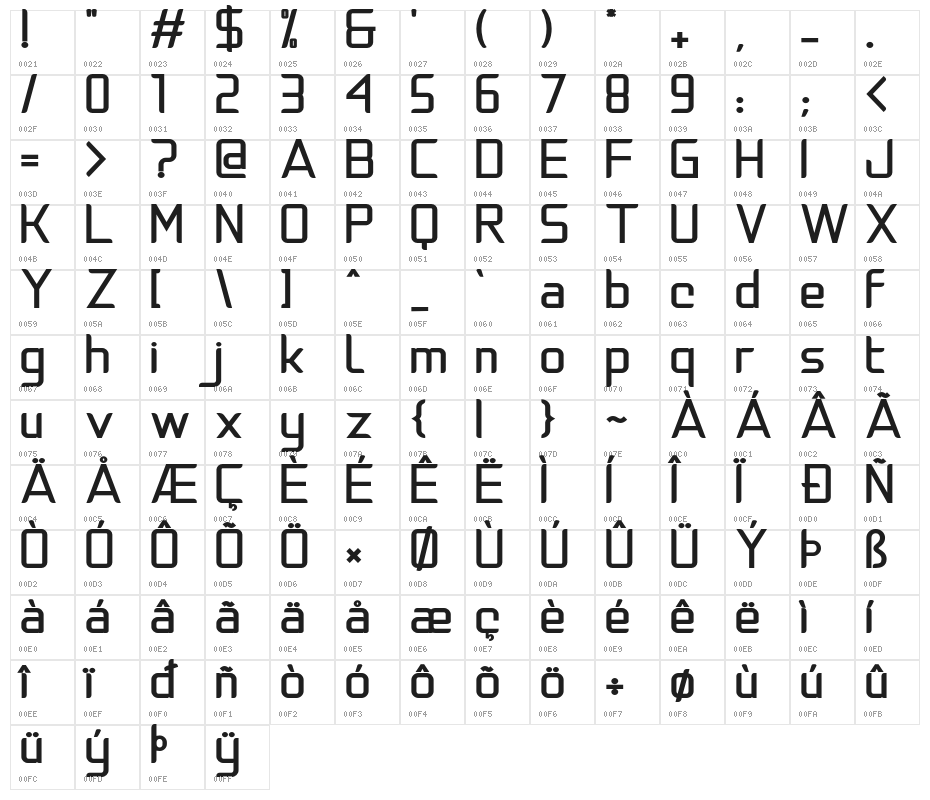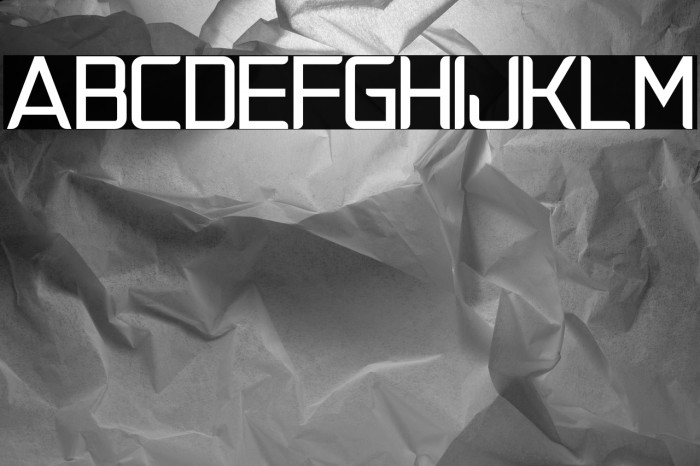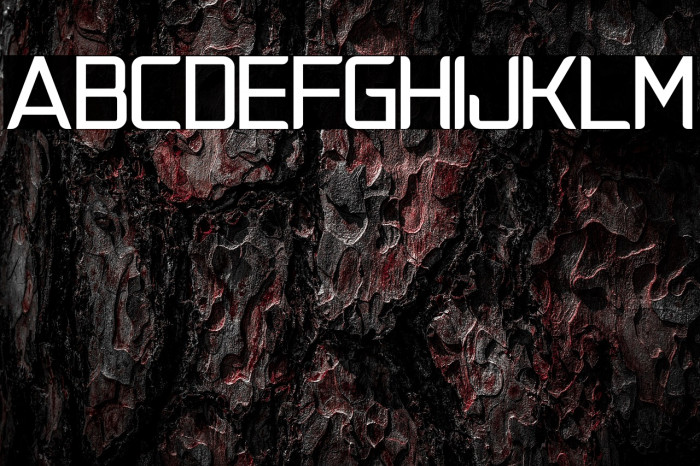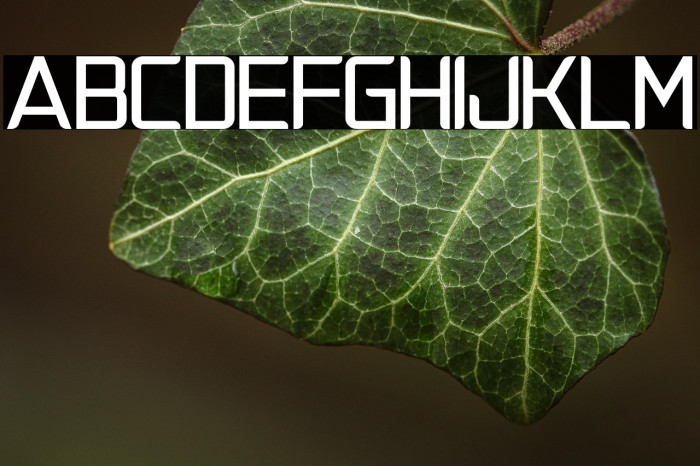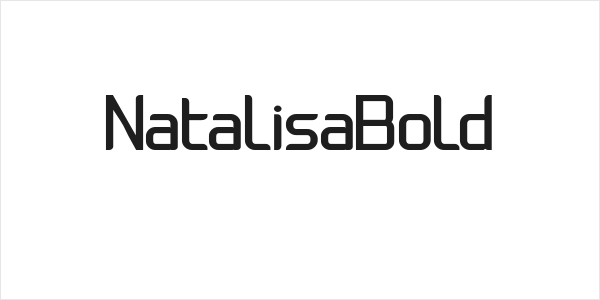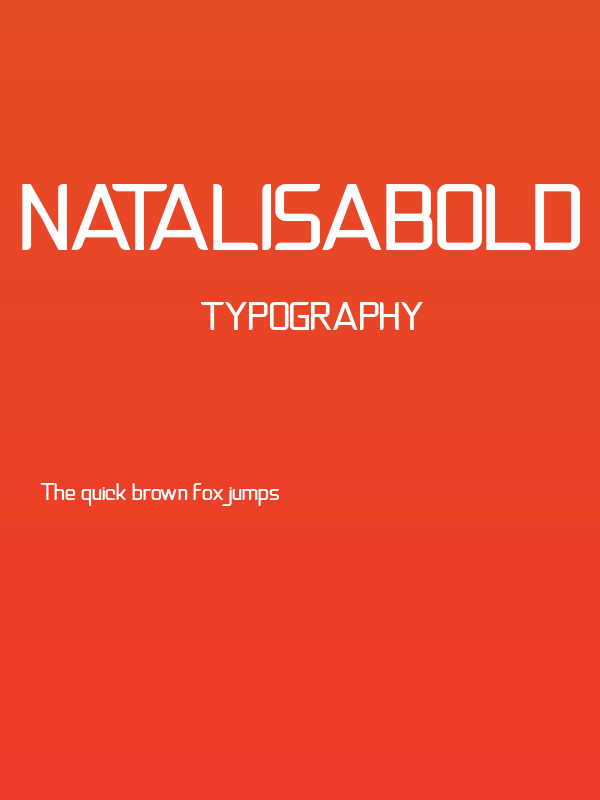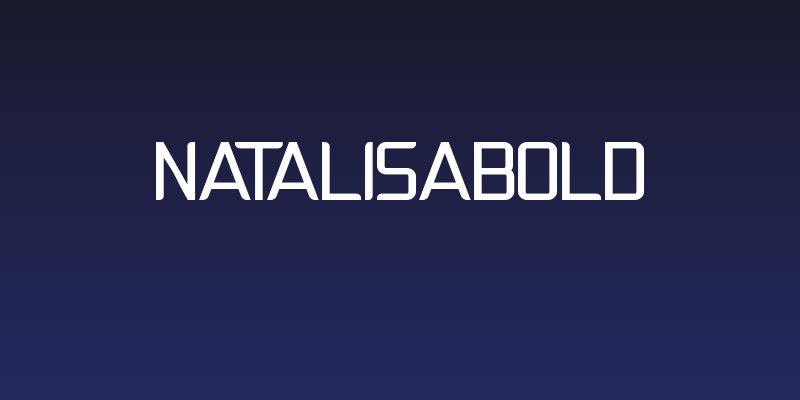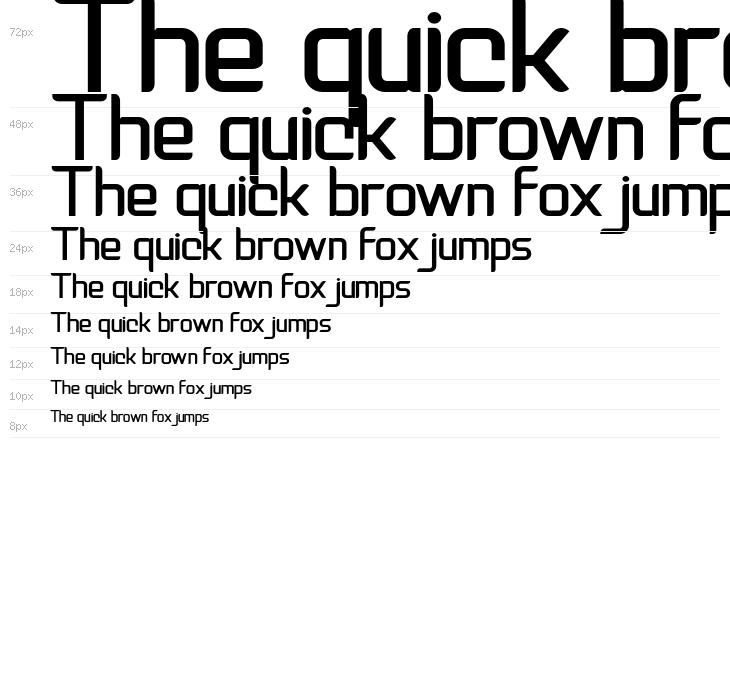
NatalisaBold Font
NatalisaBold Description
This font exhibits a modern and geometric style with a bold presence. The characters are constructed with clean, straight lines and rounded corners, giving it a futuristic and sleek appearance. The uppercase letters are uniform in height, while the lowercase letters maintain a consistent baseline, enhancing readability. The numbers are distinct and align well with the overall design, making them suitable for digital displays. Special characters are designed to match the font's geometric aesthetic, ensuring a cohesive look across all text elements.
| Use Case | Headlines, Logos, Digital Displays |
| Proposed Projects | Ideal for technology branding, digital interfaces, modern advertising, and futuristic design projects. |